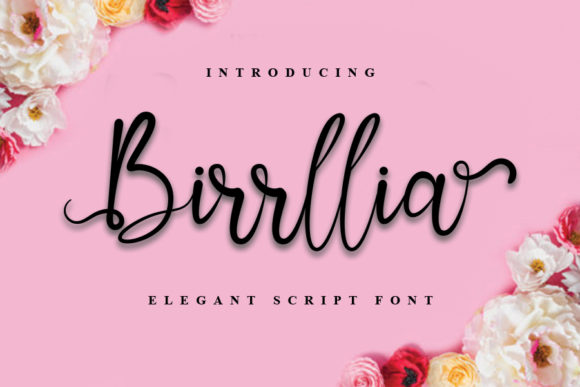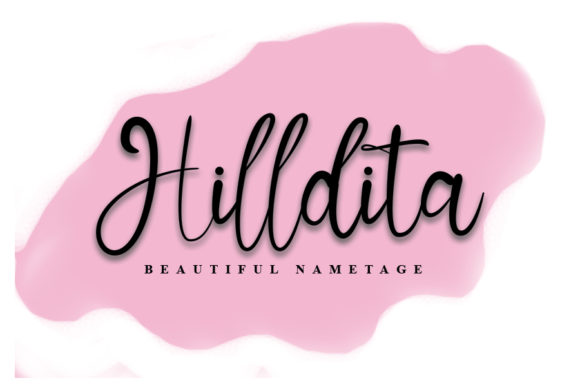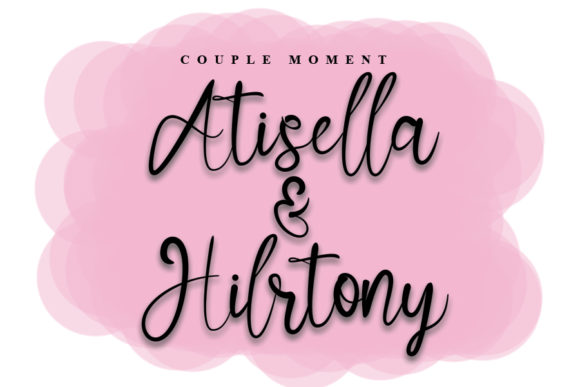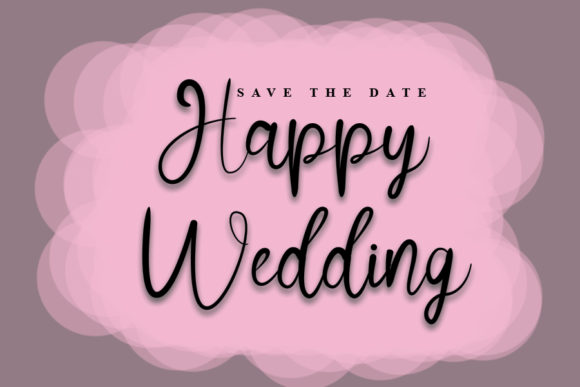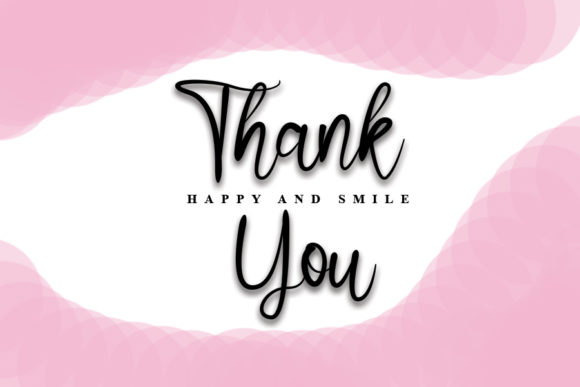
About Birrllia Font
Birrllia is a truly remarkable and timeless handwritten font, carefully crafted to exude an unmatched level of distinction and elegance. With its delicate strokes and graceful curves, Birrllia is a font that effortlessly captures attention and leaves a lasting impression.
For special occasions like weddings, Birrllia brings a touch of sophistication to wedding invitations, adding a sense of personalization and charm to the most important day of your life. It sets the tone for a memorable celebration and reflects the love and joy that surrounds such an event.
When expressing gratitude or sending thoughtful messages through thank you cards, Birrllia’s exquisite style conveys a sense of sincerity and warmth, making recipients feel appreciated and cherished.
For quotes and greeting cards, Birrllia lends a touch of grace and elegance to your heartfelt words, creating beautiful and captivating designs that resonate with emotions and leave a lasting impact on readers.
When it comes to branding, Birrllia stands out as a sophisticated choice for logos and business cards, reflecting a sense of professionalism and authenticity that aligns with your brand’s identity.
In the digital realm, Birrllia enhances social media graphics and posts, elevating your online presence with a touch of class and distinction. It effortlessly attracts attention and engages your audience with its unique and captivating appeal.
Birrllia’s distinctiveness lies in its ability to maintain a timeless quality, making it suitable for a wide array of designs. Whether your project demands a formal or a more relaxed aesthetic, this font gracefully adapts to various contexts, leaving a remarkable impression every time.
In all your creative endeavors, Birrllia serves as a reliable companion, enhancing the beauty and elegance of your designs with its timeless handwritten touch. Its versatility and captivating allure ensure that it will remain a favorite choice for a wide range of applications, showcasing the power of handwritten fonts in expressing emotions and elevating design aesthetics.
Embrace Birrllia in your creative journey and witness how its delicate and timeless appeal transforms your projects into works of art. Let this font be the brush that paints your ideas with beauty, distinction, and elegance, creating designs that resonate and leave a lasting impression on all who encounter them.